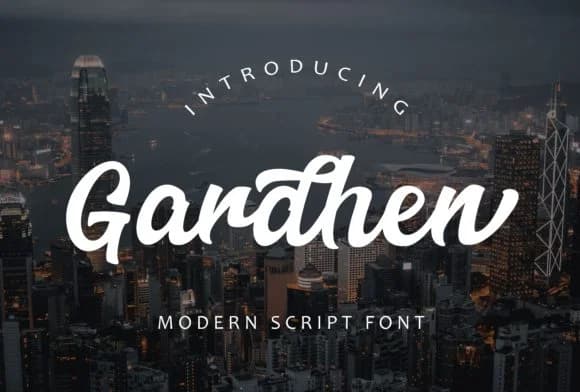
You're laying out an invitation suite for a friend's destination wedding, and you want the handwriting to feel genuinely personal, not templated. Gadhen Script Font, designed by Authentic Studio, is built for exactly this kind of moment. It captures the fluidity of pen on paper while staying legible enough to handle body copy without making readers squint.
This script performs beautifully on wedding invitation suites where elegance is non-negotiable, but also shines in smaller contexts like Etsy product labels, cosmetics packaging, custom thank-you cards, and personalized branding materials. The letterforms have enough swing and personality to make greeting cards feel authentically handwritten, yet maintain the professional polish needed for serious design work. You can layer it over subtle textures or let it breathe cleanly on minimal backgrounds. The stroke variation is particularly satisfying at display sizes, where the nuanced details become truly visible. That's where the handcrafted quality really shines through and the calligraphic influence becomes unmissable.
Gadhen gives you genuine handcrafted warmth without sacrificing professionalism. It's the kind of script that works just as well for a luxury cosmetics brand as it does for intimate event stationery. Find it on Creative Fabrica. This is the script you'll reach for when handwritten character matters.
Gadhen Script Font is a script font that shines as a display or heading face. Pair it with a clean sans-serif or serif font for body text — the contrast creates a clear hierarchy while the two styles stay balanced and easy to read.
Gadhen Script Font